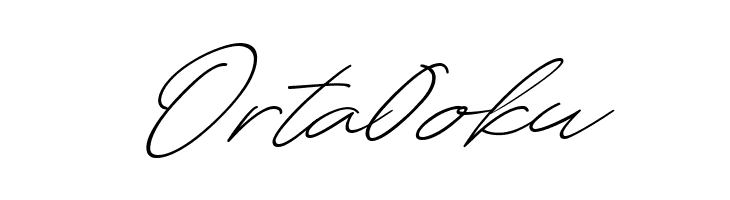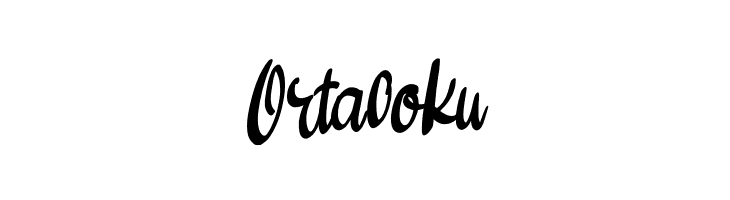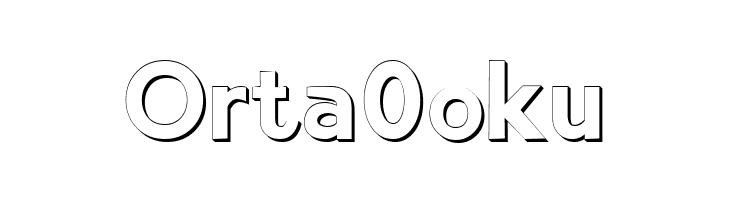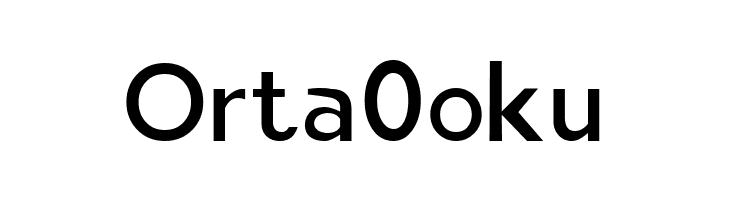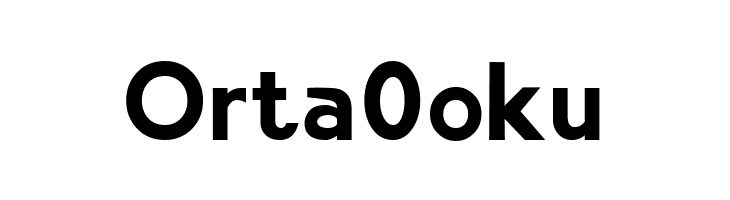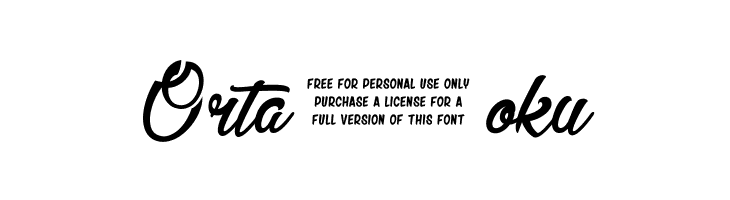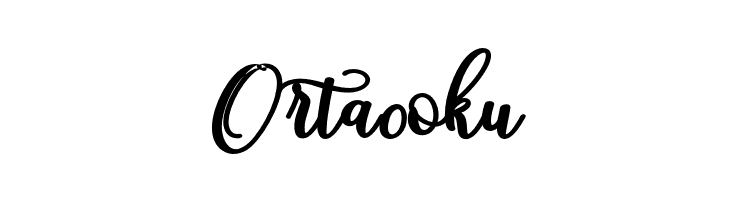
A bold, expressive handwritten font with fluid and dynamic strokes.
A fluid and elegant script font with cursive, connected strokes.
A bold, italic font with a futuristic and dynamic style.
A bold, elegant cursive font with flowing, ornate characters.
An elegant calligraphy font with flowing, interconnected strokes and ornate flourishes.
A bold, modern font with geometric and futuristic elements.
A bold, 3D outlined font with a modern, geometric style.
A bold, modern font with a gradient effect created by horizontal lines, conveying motion and energy.
A modern, geometric font with clean lines and consistent stroke widths.